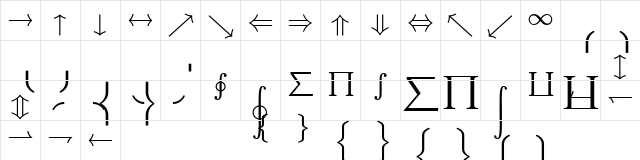
euex7 Regular
Design Context for euex7 Typeface
euex7 takes a measured approach to typography — its balanced proportions and neutral character make it a reliable workhorse for both digital and print work.